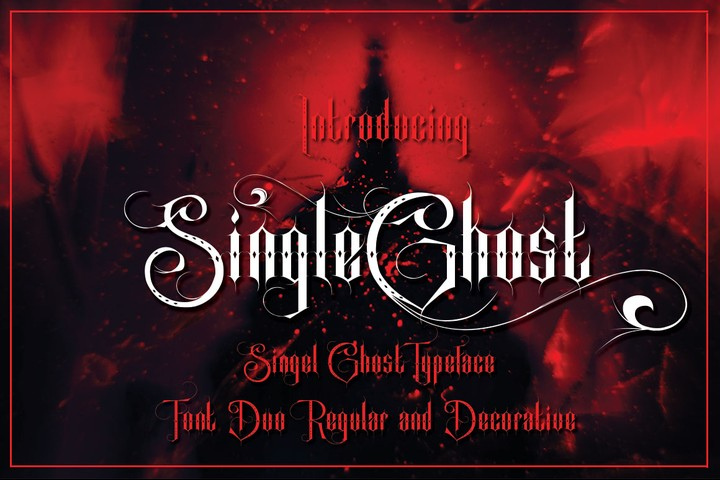
Single Ghost Font
Single Ghost Font is perfect for mysterious brand identities, horror movie titles, haunting book covers, gothic fashion campaigns, dark themed websites, spooky event invitations, supernatural gaming interfaces, alternative music branding, and atmospheric poster designs.
What makes Single Ghost Font exciting is its hauntingly elegant letterforms combined with ethereal transparency effects that create an otherworldly visual presence. The font's spectral character details and atmospheric weight variations deliver spine-tingling aesthetic appeal while maintaining surprising readability, making it the perfect choice for brands and creatives seeking to evoke mystery, intrigue, and supernatural allure in their visual communications.
Single Ghost Font family includes multiple opacity variations, decorative ghostly elements, and stylistic alternates with haunting flourishes, providing designers with comprehensive tools for creating immersive supernatural experiences and memorable dark-themed brand identities.
This extraordinary typeface captures the essence of spectral elegance and mysterious storytelling in every carefully crafted letterform. Single Ghost Font Free Download presents designers with an exceptional opportunity to create truly atmospheric visual experiences that captivate audiences drawn to dark aesthetics and supernatural themes. Whether you're developing horror entertainment brands, designing gothic fashion campaigns, or creating immersive gaming experiences, this font family delivers the haunting character needed to establish powerful emotional connections.
The innovative transparency effects and ghostly character variations create layered visual depth that adds sophisticated atmosphere to any design application. Extensive decorative elements support unlimited creative storytelling possibilities.
Single Ghost Font stands out in the display typography category through its unique ability to communicate mystery and elegance simultaneously. This remarkable typeface doesn't just display text—it creates atmospheric experiences that linger in viewers' minds, making it an invaluable asset for designers working in entertainment, fashion, and alternative lifestyle markets where emotional impact drives audience engagement.